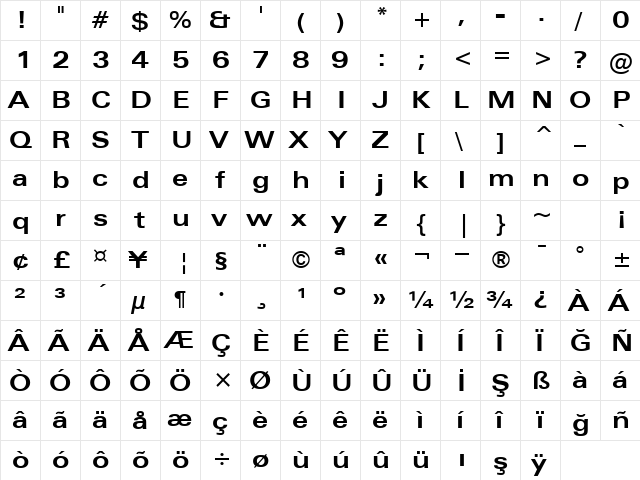
00326 Regular
Design Context for 00326 Typeface
00326 takes a measured approach to typography — its balanced proportions and neutral character make it a reliable workhorse for both digital and print work.